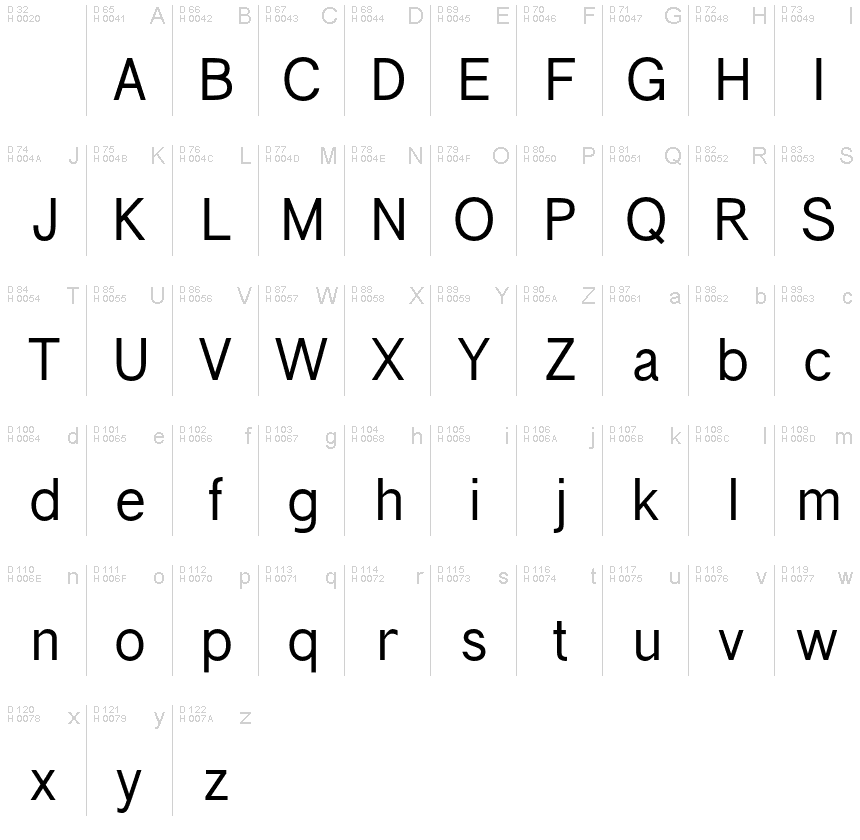
LupinaDemo-Regular
Lupina, crafted by Craft Supply Co., is a stunning sans serif font with a semi-light weight.
Its clean lines and modern aesthetic make it perfect for branding projects, such as logos and business cards. With its legible yet stylish design, Lupina is also ideal for website headers and body texts, giving your online presence a professional touch. Additionally, this versatile font can be used in editorial designs like magazines or book covers, enhancing the readability and visual appeal of your content.
Lupina truly embodies elegance and sophistication in every project it graces.